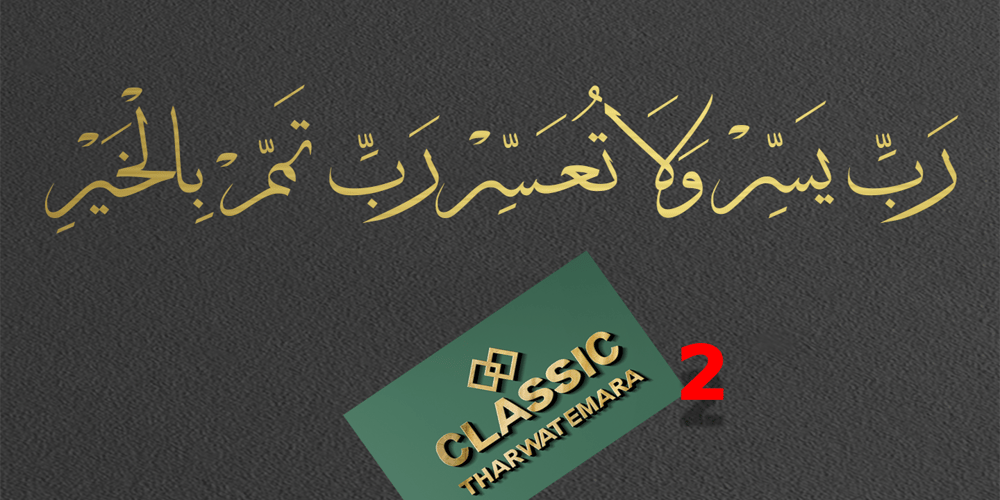
TE Classic 2
TE Classic 2 font
TE Classic 2 Font Family was designed by Tharwat Mohamed Emara and published by Tharwat Emara. TE Classic 2 contains 1 styles and family package options. TE Classic2 Tharwat Emara is an exquisite Arabic Thuluth font that is designed to add a touch of elegance and sophistication to any project. This font is named after the renowned calligrapher Tharwat Emara, who is widely celebrated for his outstanding work in the field of Arabic calligraphy.One of the most remarkable features of TE Classic2 Tharwat Emara is its impeccable balance between the thick and thin lines. The font’s curves and strokes are carefully crafted to create a seamless and harmonious flow, giving it a unique and mesmerizing appearance. The intricacies and details of the font’s characters reflect the skill and artistry of the calligrapher and demonstrate the perfect balance between tradition and modernity.TE Classic2 Tharwat Emara is a perfect choice for designers and artists who want to add a touch of Arabic culture and tradition to their projects. The font comes with a full set of Arabic characters, including ligatures, diacritical marks, and numerals. The characters are designed to be easily legible and readable, making it suitable for use in both print and digital media.One of the most striking aspects of TE Classic2 Tharwat Emara is its versatility. It can be used for a wide range of applications, from branding and advertising to editorial and publishing. Its unique and captivating design will make any project stand out and attract customers, making it a valuable investment for designers and artists.The font’s exquisite design is not only limited to its characters, but it extends to its overall layout and spacing. TE Classic2 Tharwat Emara has a perfect balance between its characters’ shapes and spaces, giving it a smooth and consistent look. The font’s spacing is also carefully crafted to ensure that the characters are well-organized and easy to read.TE Classic2 Tharwat Emara is not just a font; it’s a work of art. Its unique design and intricate details make it stand out from other Arabic fonts in the market. The font’s exquisite design is a result of the meticulous attention to detail paid by the calligrapher, which is evident in every stroke and curve of the font’s characters.Overall, TE Classic2 Tharwat Emara is a font that celebrates the beauty and elegance of Arabic calligraphy. Its captivating design and versatility make it an excellent choice for designers and artists who want to add a touch of tradition and culture to their projects. With its unique and mesmerizing appearance, TE Classic2 Tharwat Emara is sure to attract customers and make any project stand out.